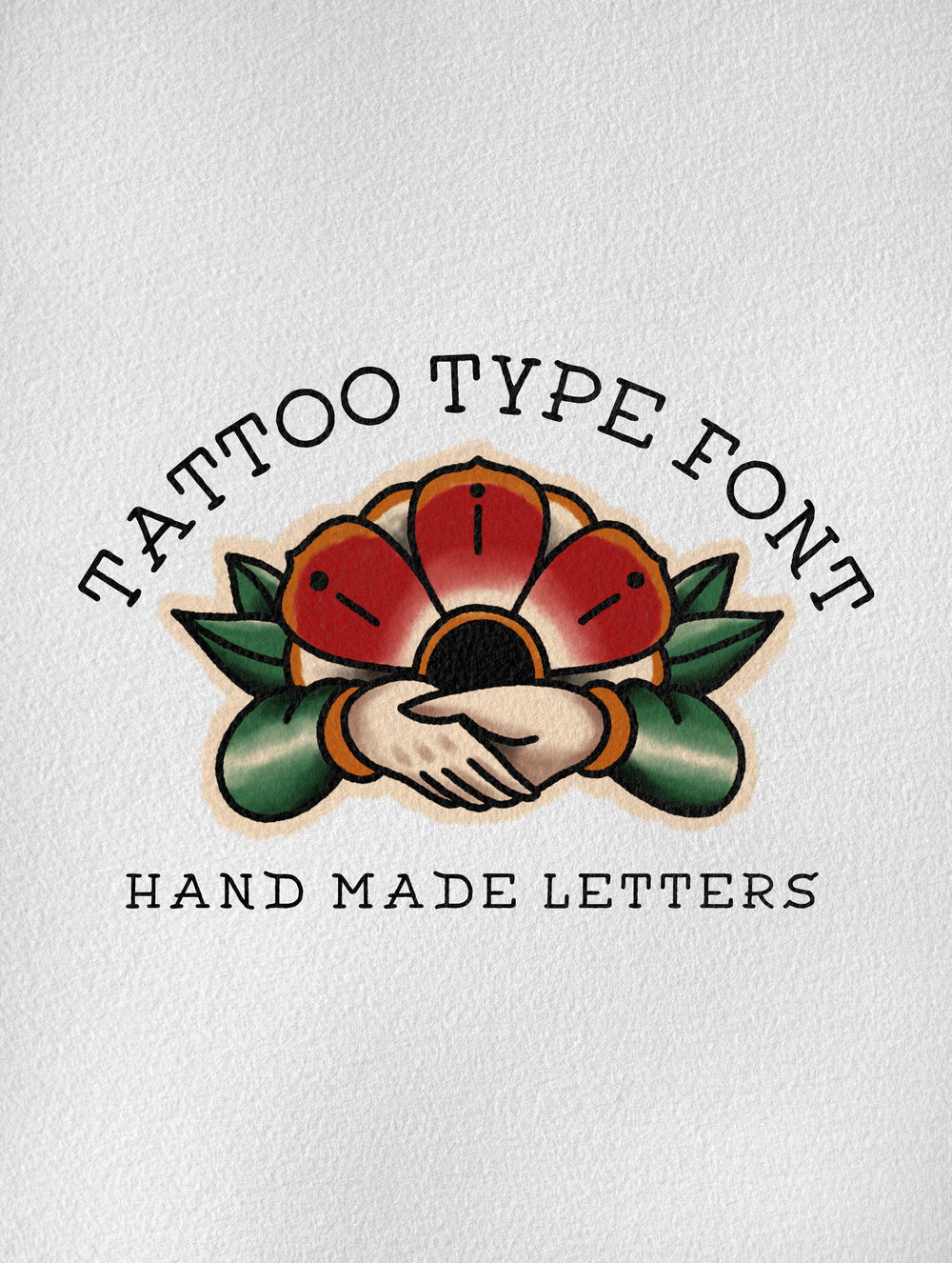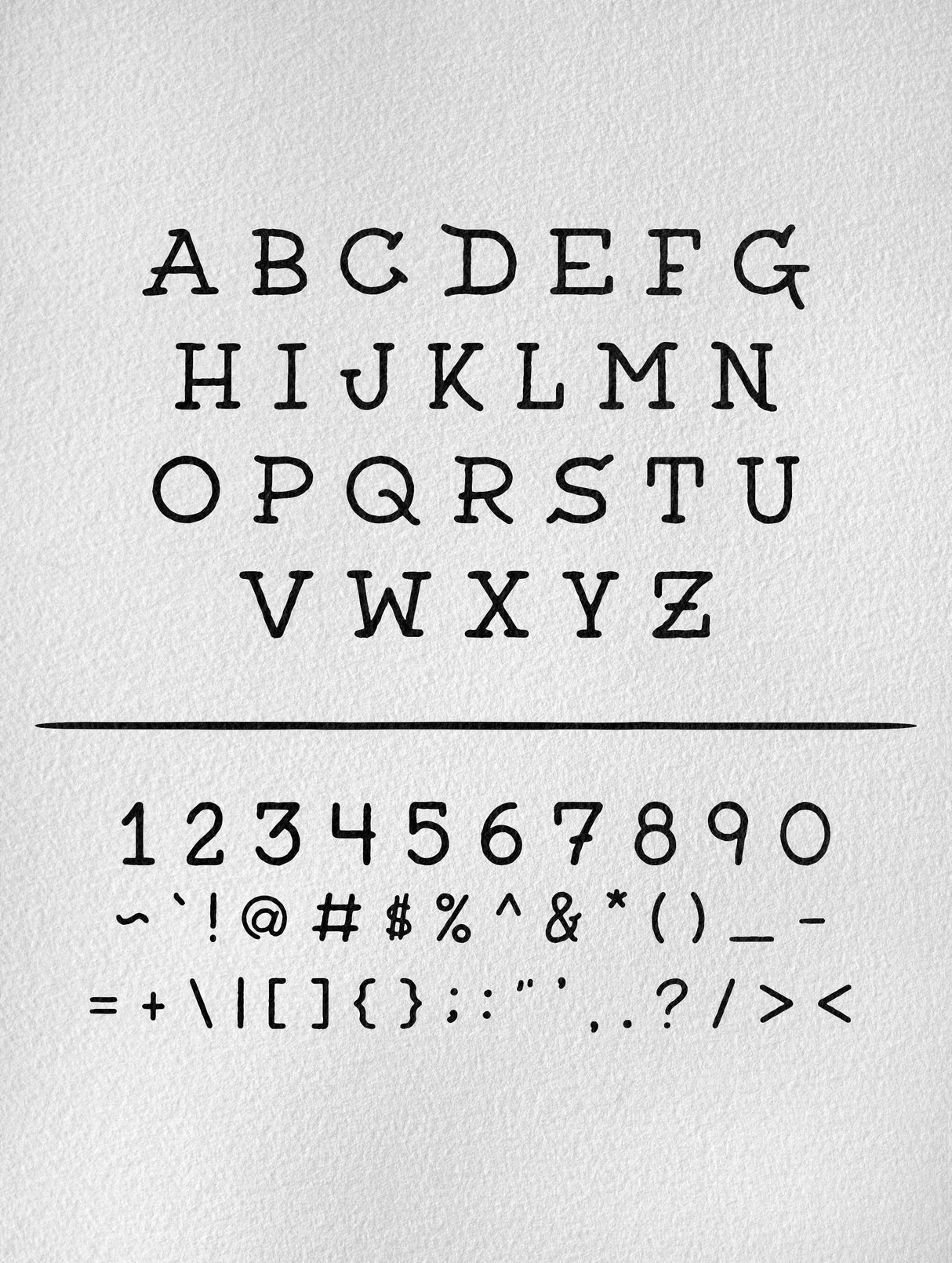
Tattoo Type Font (Download Only)
Check out this hand made font inspired by traditional tattoo lettering! Feel free to use this font for personal and commercial use!
• All letters, numbers, and symbols are included